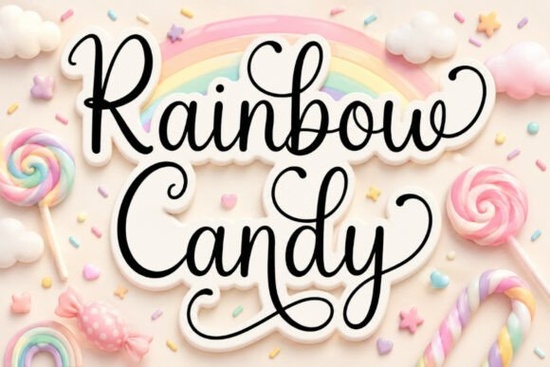
If you're looking for a font that brings warmth, whimsy, and a splash of color to your designs without actually needing multicolored letters, the Rainbow Candy Font might be exactly what your next project needs. This handwritten script font captures the joyful spirit of childhood think birthday parties, candy wrappers, and hand-drawn notes passed between friends. With its smooth strokes, gentle curves, and elegant swashes, it’s crafted to feel personal and playful, not stiff or overly polished.
What makes Rainbow Candy especially useful is how versatile it is across different mediums. Whether you’re designing nursery wall art, custom baby onesies, printable party invites, or even sublimation mugs for a small Etsy shop, this font adds instant charm without overwhelming your layout. It pairs well with simple sans-serif fonts for contrast or stands strong on its own when you want that handcrafted, heartfelt look.
Who is Rainbow Candy Font best for?
This font shines in projects where friendliness and approachability matter most:
- Print-on-demand sellers creating cheerful apparel, totes, or drinkware
- Small business owners branding kids’ products, bakeries, or party supply lines
- Crafters and hobbyists making DIY stickers, greeting cards, or scrapbook elements
- Graphic designers working on invitations, packaging, or social media graphics with a lighthearted tone
Unlike some script fonts that lean too formal or overly ornate, Rainbow Candy keeps things relaxed and readable ideal for short headlines, names, quotes, or product labels where personality matters more than strict legibility at tiny sizes.
How does it compare to other handwritten scripts?
Rainbow Candy sits in a sweeter, softer lane. It’s less about urban edge or minimalist elegance and more about nostalgia and delight. For something with vintage typewriter charm, you might consider Little Typewriter, while Athaya leans into graceful, flowing calligraphy. Each has its place but if your goal is pure, unfiltered joy, Rainbow Candy delivers.
Tips for using Rainbow Candy effectively
To get the most out of this font, keep these practical ideas in mind:
- Avoid long paragraphs. Script fonts like this work best in short bursts think names, slogans, or single-line quotes.
- Use generous spacing. Slightly increase letter-spacing (tracking) if letters feel too tight, especially in uppercase or swash-heavy words.
- Pair with neutral backgrounds. Pastels, white, or soft textures let the font’s personality shine without visual competition.
- Test print readability. While it looks lovely on screen, always do a physical test print for items like mugs or shirts to ensure details hold up.
Also, remember that many Creative Fabrica fonts including Rainbow Candy come with bonus alternates, ligatures, or swash characters. If your design software supports OpenType features (like Adobe Illustrator or Affinity Designer), take a few minutes to explore those extras. They can turn a simple word into something truly unique.
Is it worth adding to your font library?
If your creative work often involves themes of celebration, childhood, sweetness, or handmade aesthetics, then yes. Rainbow Candy isn’t trying to be everything to everyone it’s a specialized tool with a clear voice. And in a market crowded with generic scripts, having a font that instantly communicates warmth and playfulness is a real asset.
Before you download, ask yourself: Does my audience respond to friendly, hand-drawn energy? If you’re selling baby shower kits, designing classroom decor, or crafting “just because” gifts, this font will likely earn its keep.